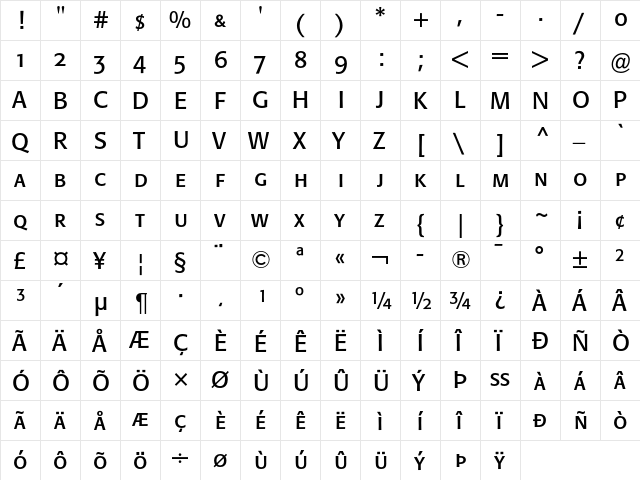
Formata SC
Design Context for Formata Typeface
Formata takes a measured approach to typography — its balanced proportions and neutral character make it a reliable workhorse for both digital and print work.
Pro Tip: Pair Formata with a font of contrasting weight or personality to build a more expressive typographic hierarchy.